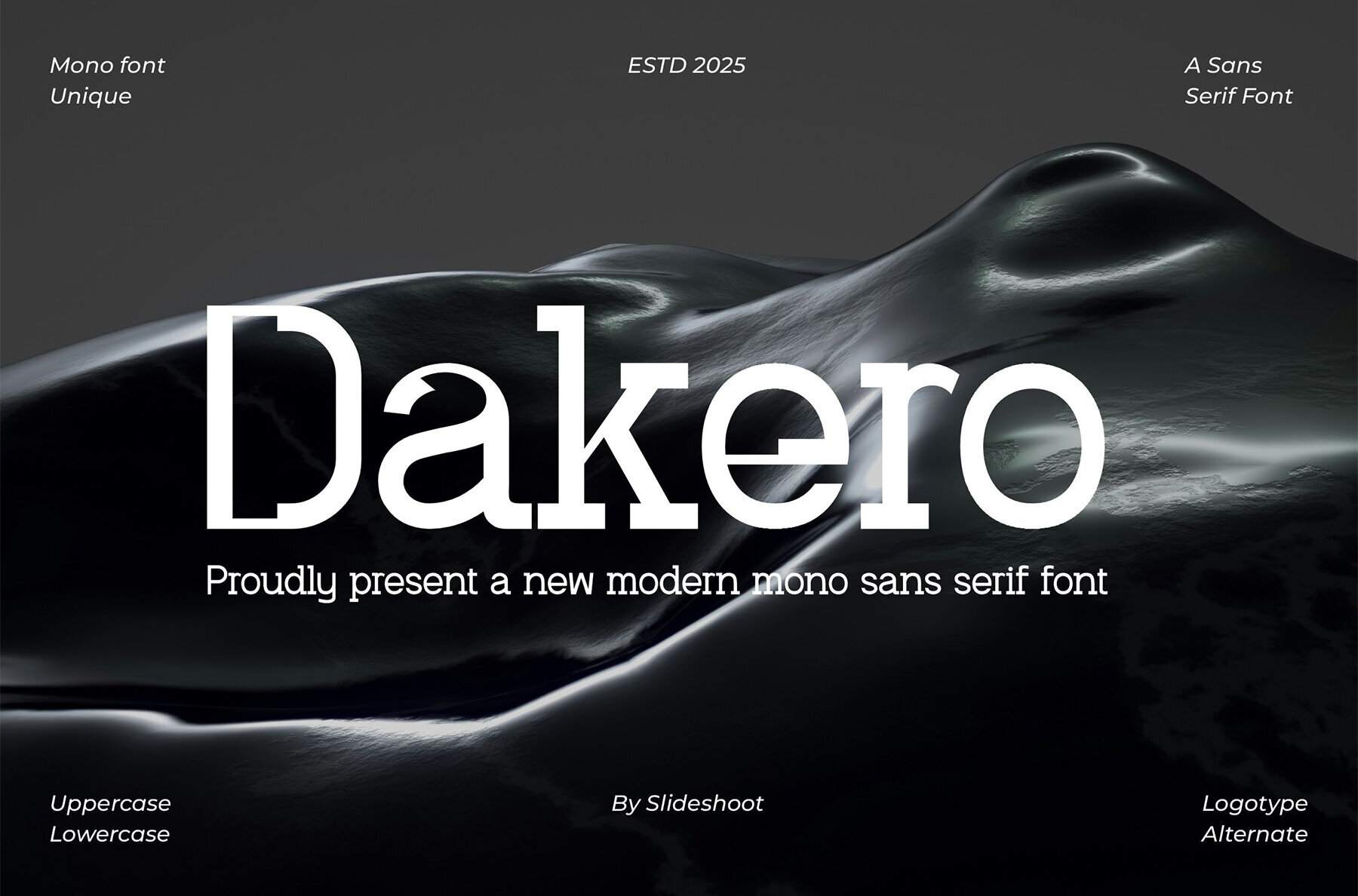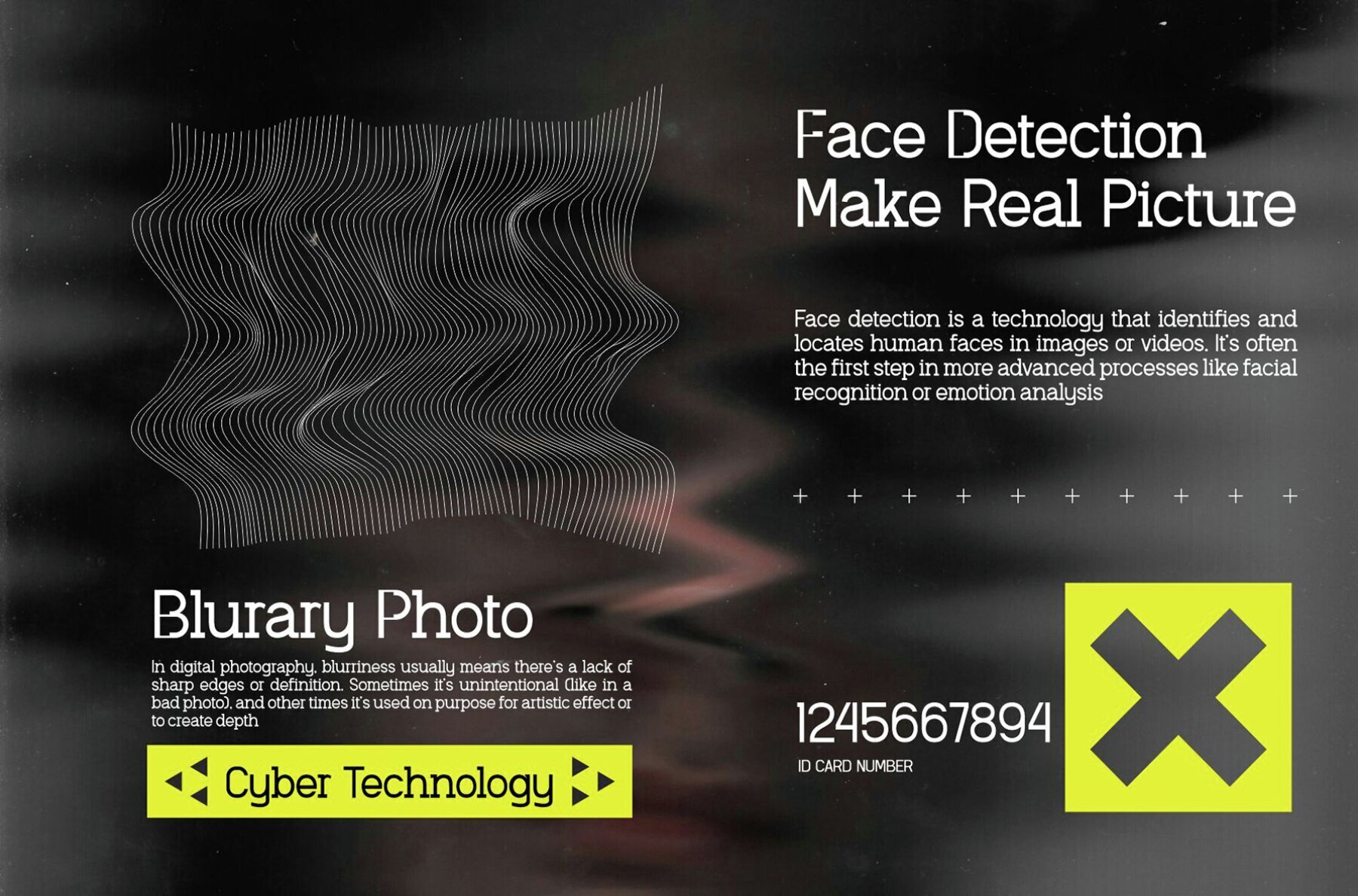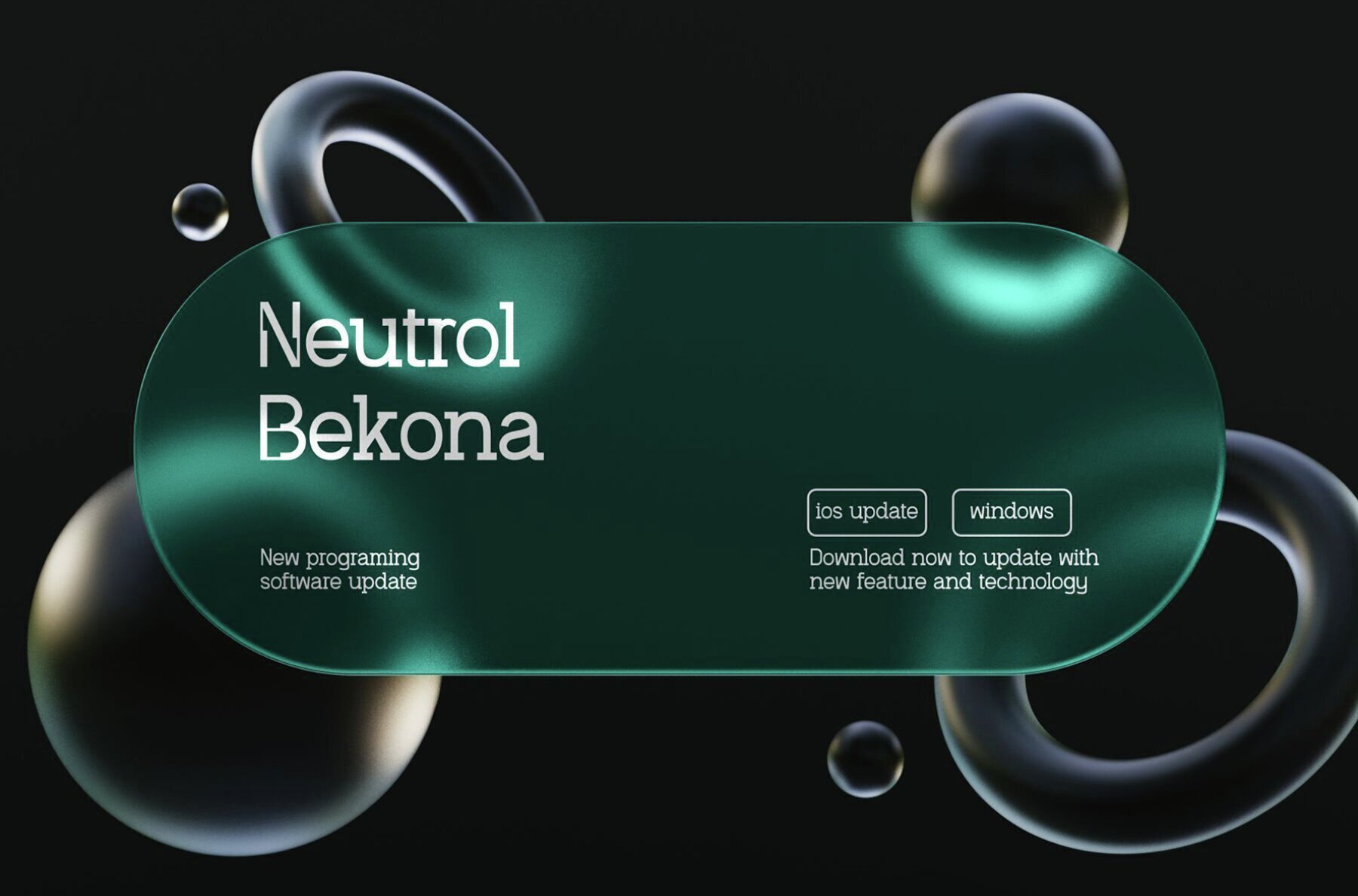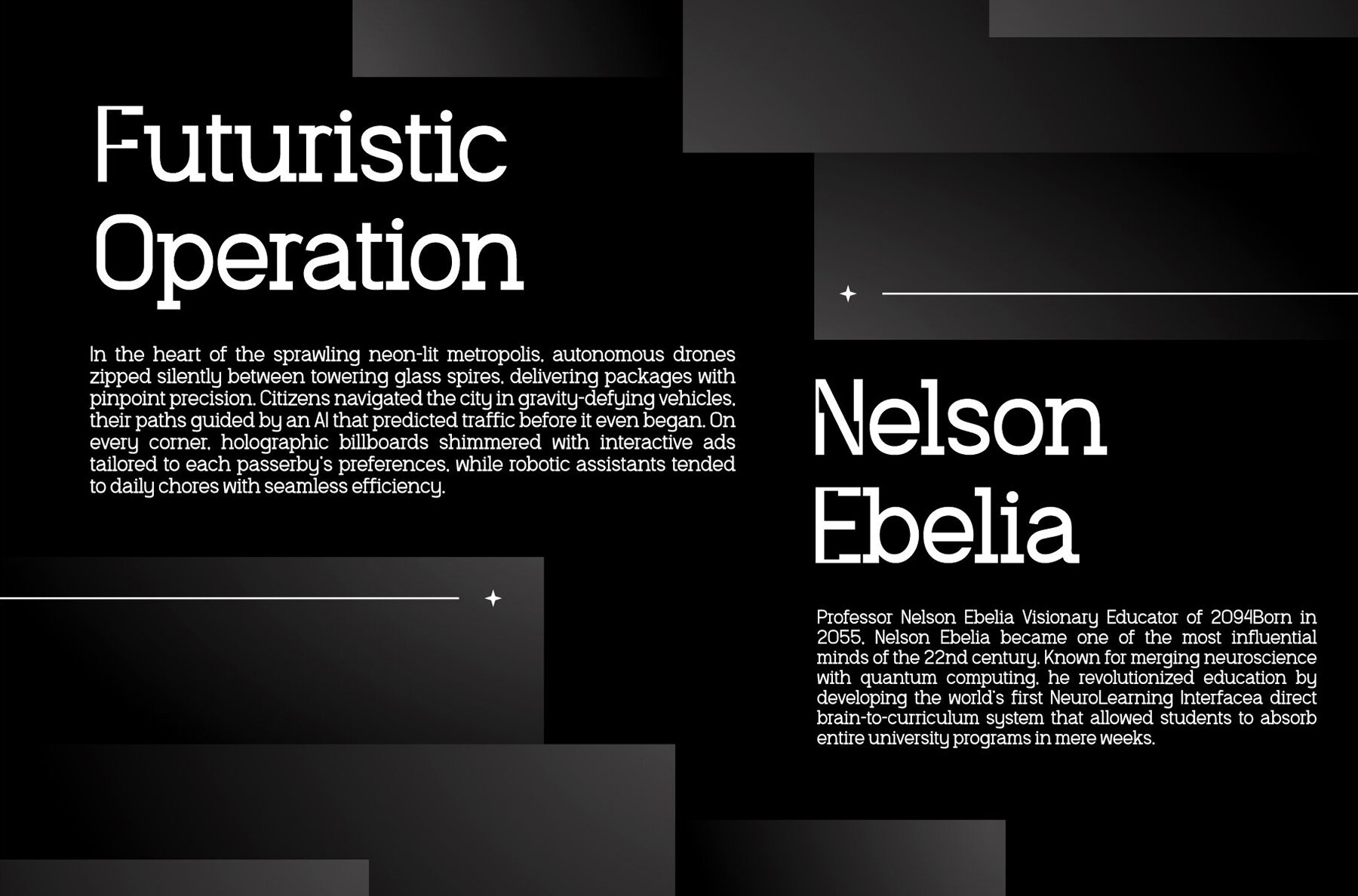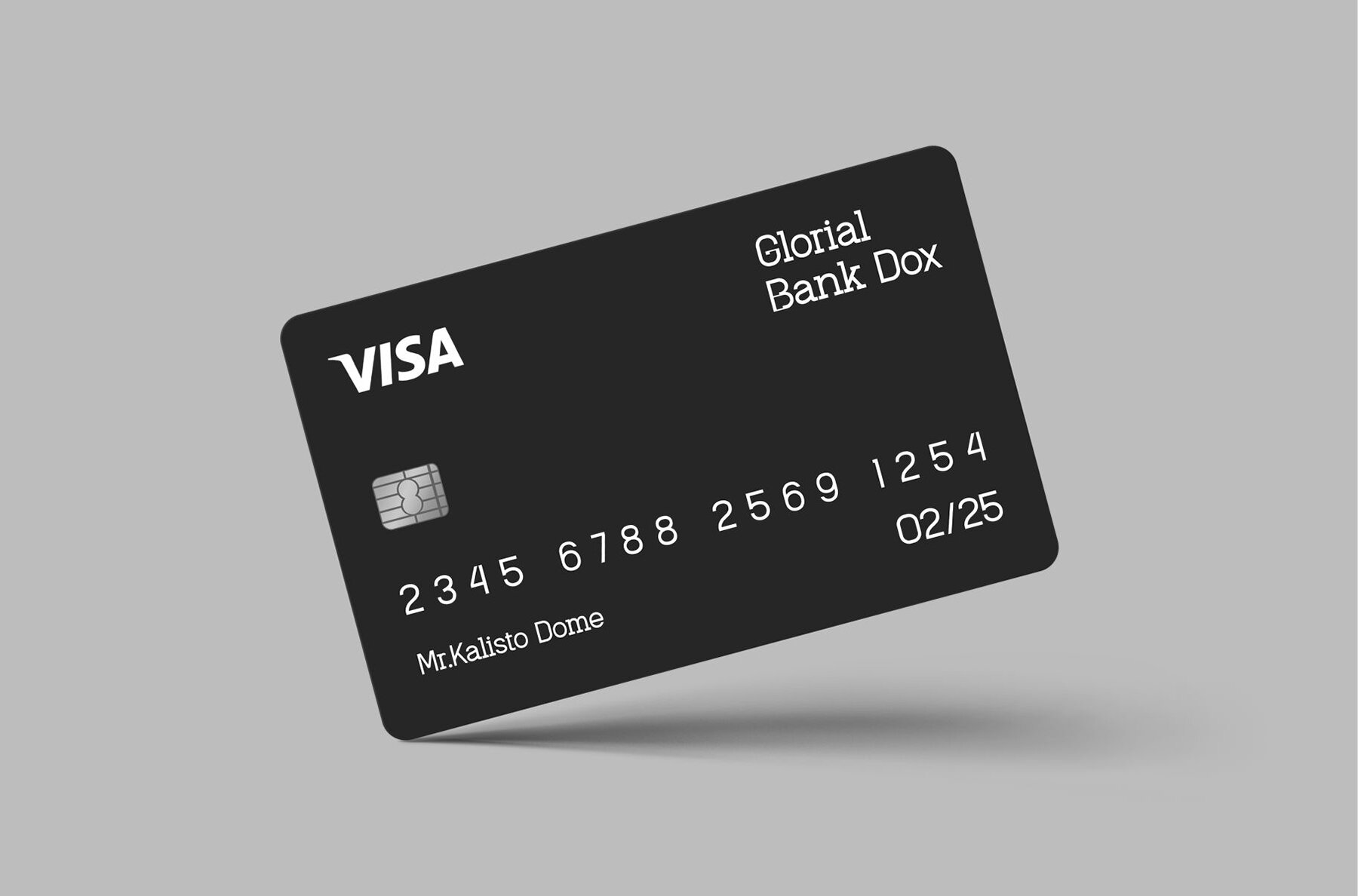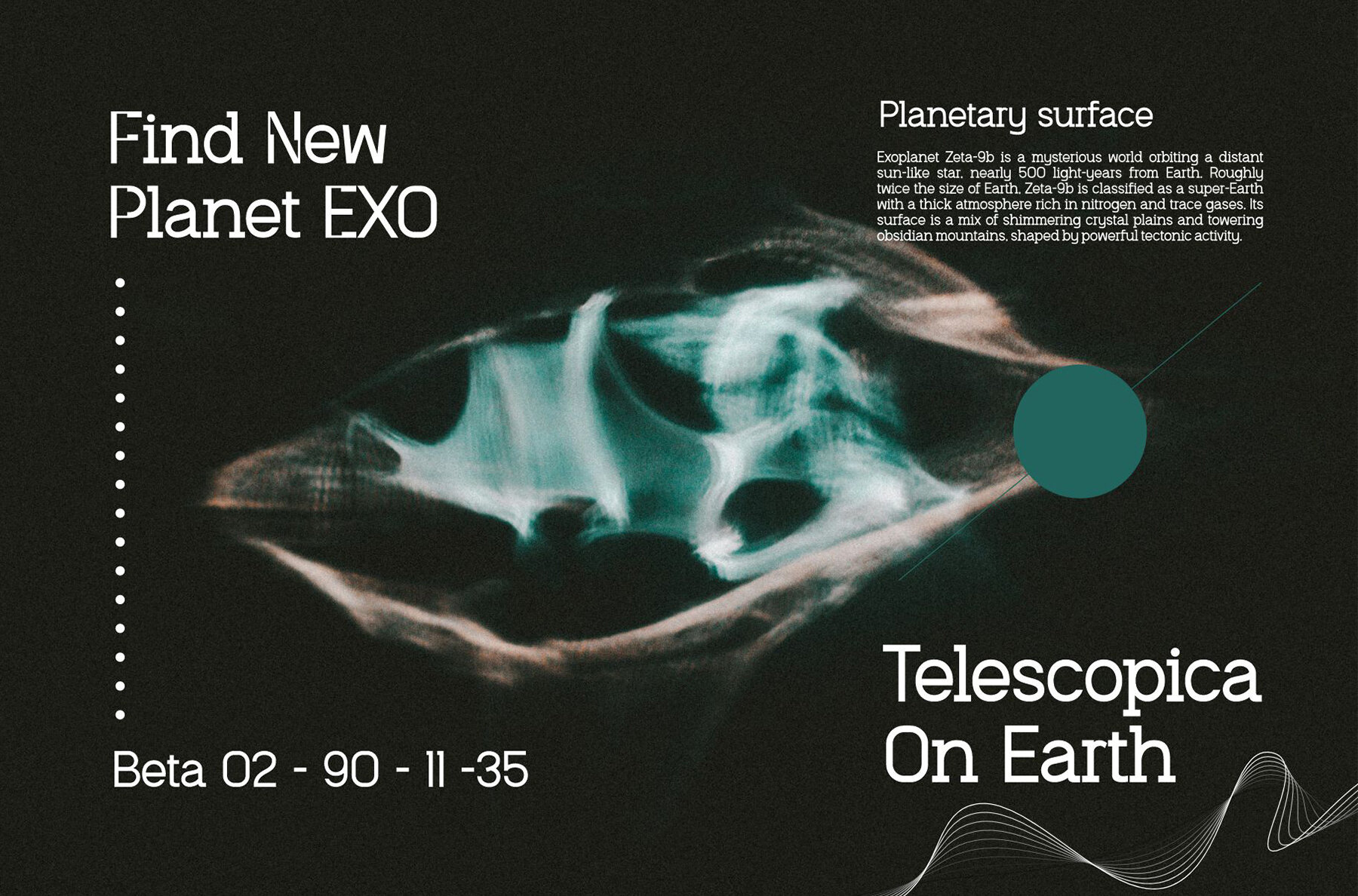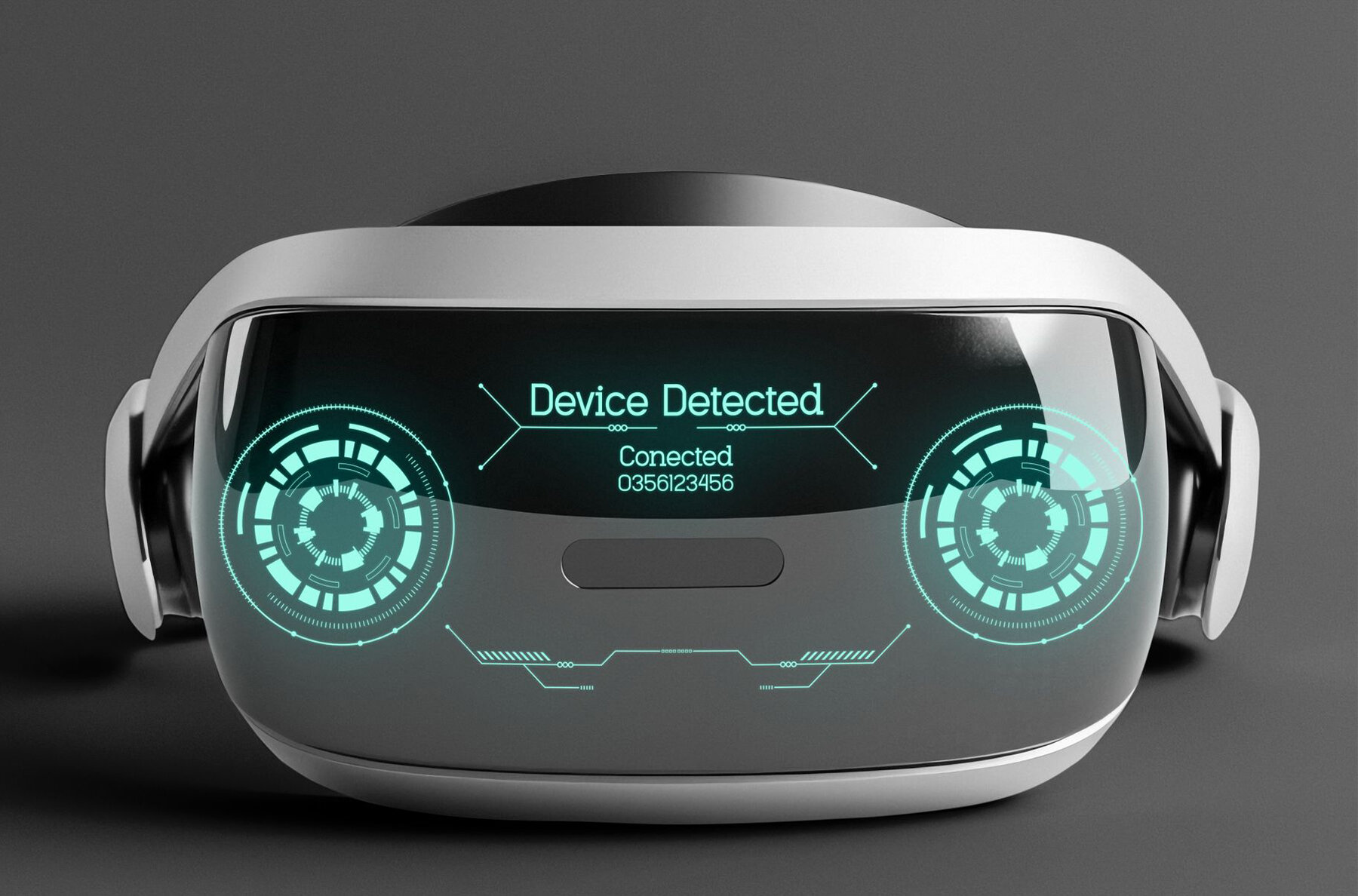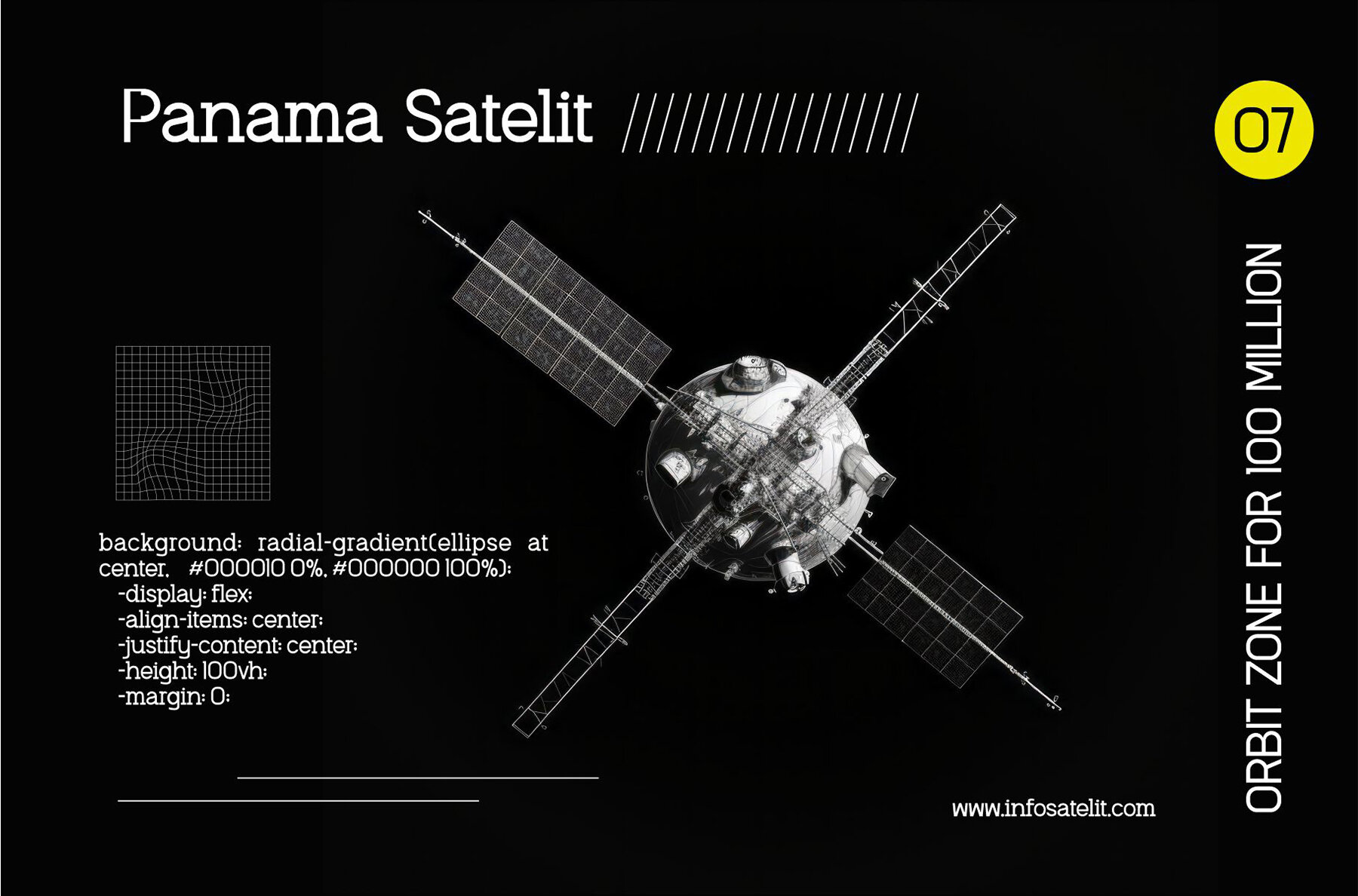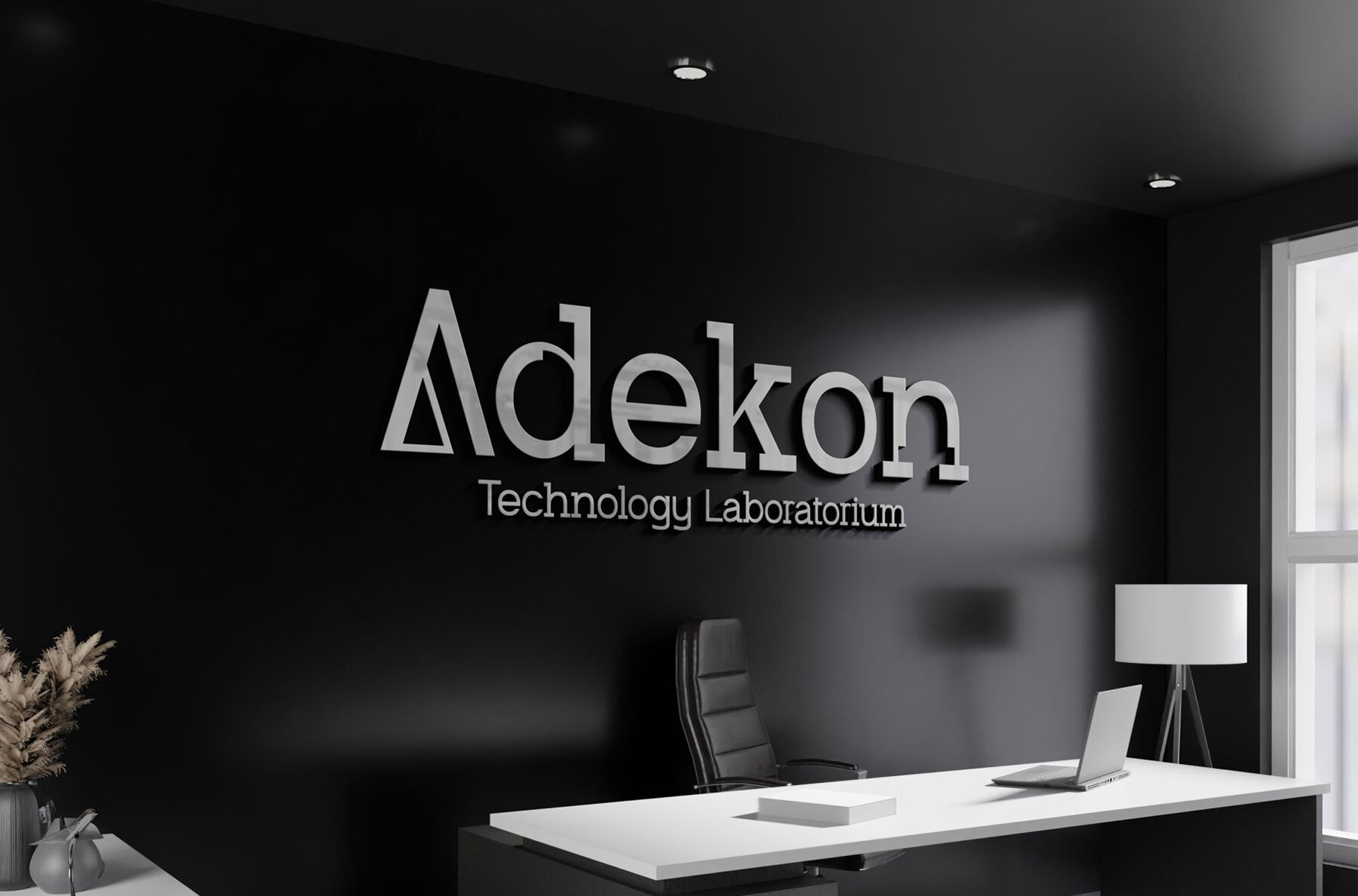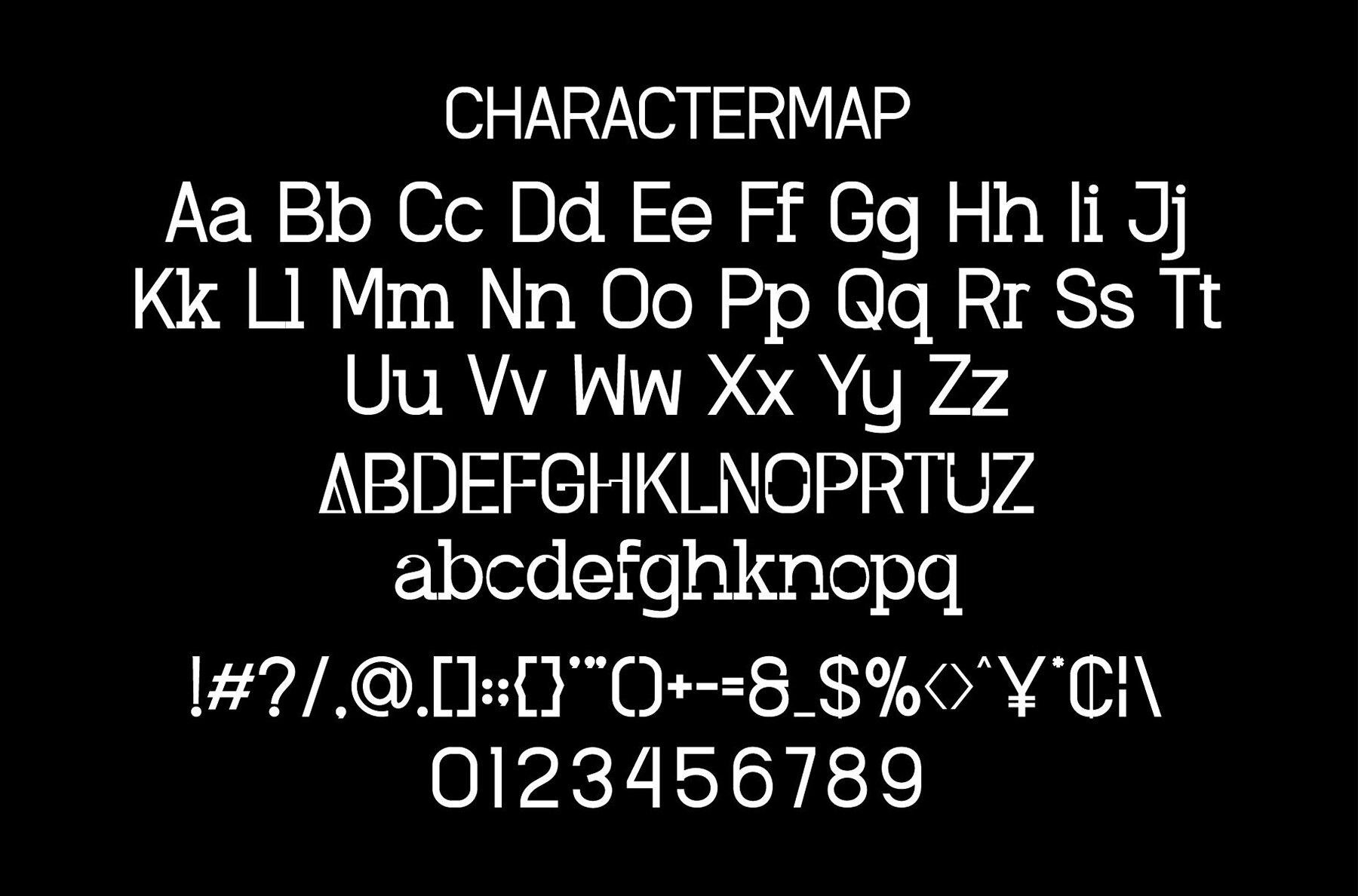
Dakero Font
Dakero
Discover Dakero, a contemporary sans serif font that combines trendiness with a playful bounce, enhanced by a cute display style. Its unique wood-themed character sets it apart, making it an excellent choice for a variety of creative projects. Whether designing invitation cards, crafting company logos, or titling movies and books, Dakero adds a distinct personality to your work.Dakero: The Modern Sans Serif Font